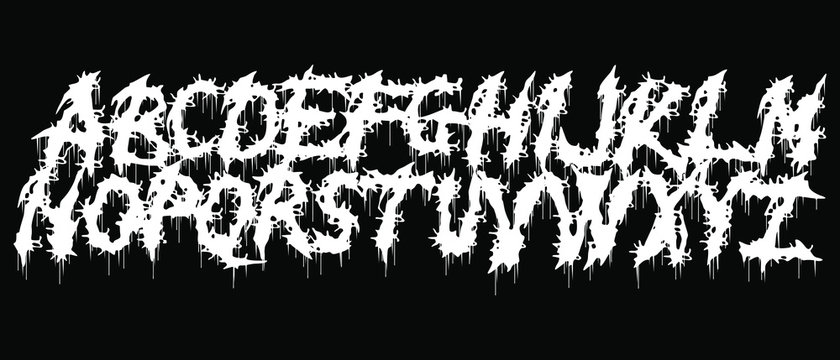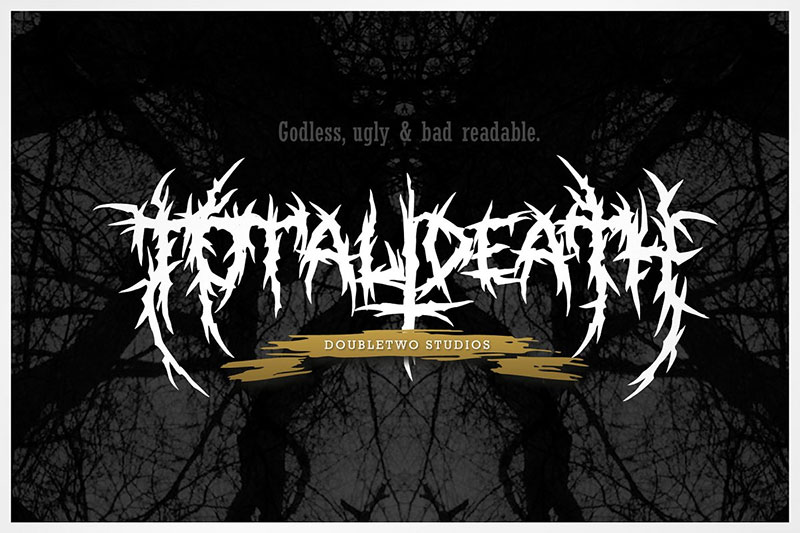
Curated by the adobe type team. Death metal fonts are great for music designs.
In order to make a design project successful and attractive, you must properly make a choice of the font style that fits the set design and looks stand out.
Heavy metal font adobe. Band posters are the perfect opportunity to try out some of the more playful fonts in the library. If you want to create professional printout, you should consider a commercial font. Stock vector and explore similar vectors at adobe stock.
Free fonts often have not all characters and signs, and have no kerning pairs (avenue ↔ a venue, tea ↔ t ea). Adobe fonts is the easiest way to bring great type into your workflow, wherever you are. This music style is a subgenre of heavy metal, and you can use these free fonts to make designs for your favorite death metal bands like morbid angel, cannibal corpse, deicide, and bold thrower!
You can see the sharp and dry branches in this death metal font, the best use of which in flyer halloween and scary themes. Slashmine metal font logo (otf, ttf, woff) slashmine is an authentic and modern blackletter font that's perfect for branding and logo creation. Metal style fonts and texts are undoubtedly a significant part of web designing, creating marketing materials, personal invitations, corporate cards, etc.
Stock vector and explore similar vectors at adobe stock. Share some music with the world! Heartless font, in addition to having a metallic style, is a kind of dancing letters.
Typography for labels, headlines, posters etc. Adobe fonts partners with the world’s leading type foundries to bring thousands of beautiful fonts to designers every day. So i suggest you look at the list of the death metal fonts.
In gothic > modern 9,014 downloads (15 yesterday) free for personal use. Blackink font is a blackletter style font that is excellent for use as a heavy metal font logo. Convert your favorite text, font, or logo to death metal and chrome styles with just one click!
Convert your favorite text, font, or logo to death metal and chrome styles with just one click! Expressive typography like this can give a little extra life to your letters — and can also help people understand what they’ll be getting themselves into. Creating your own heavy metal logo has never been easier.